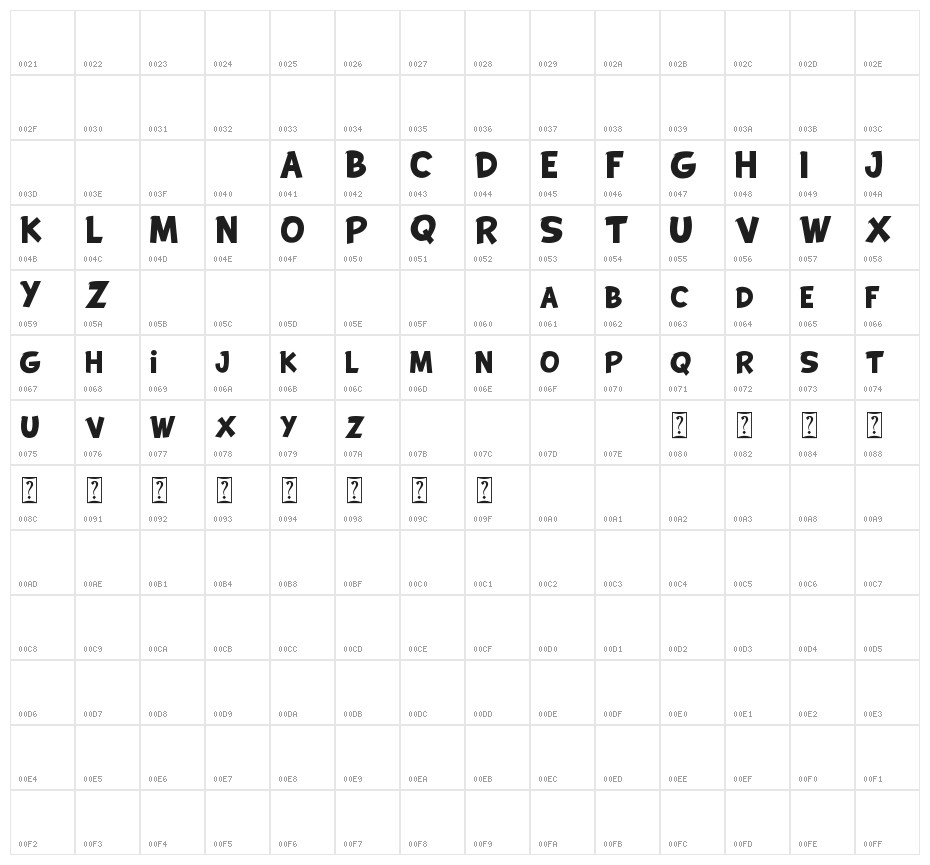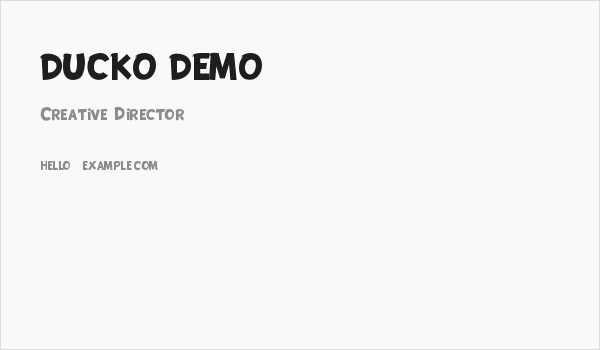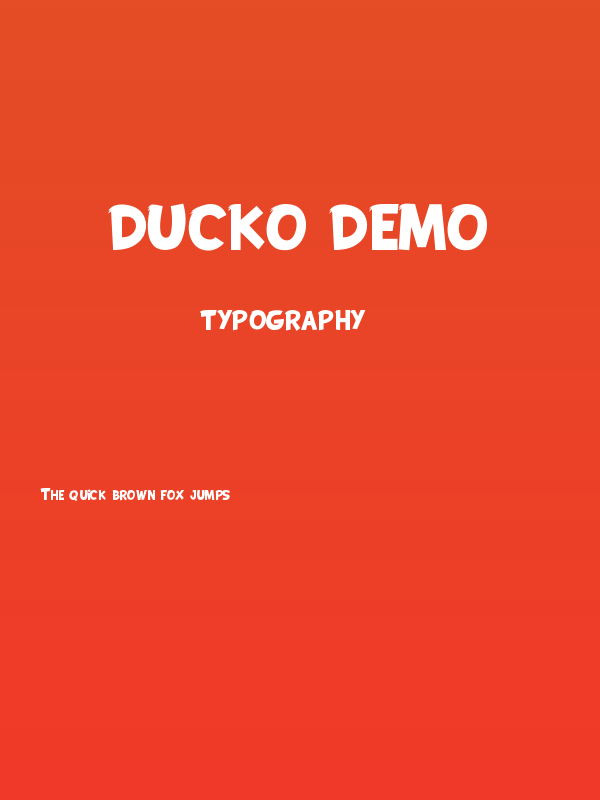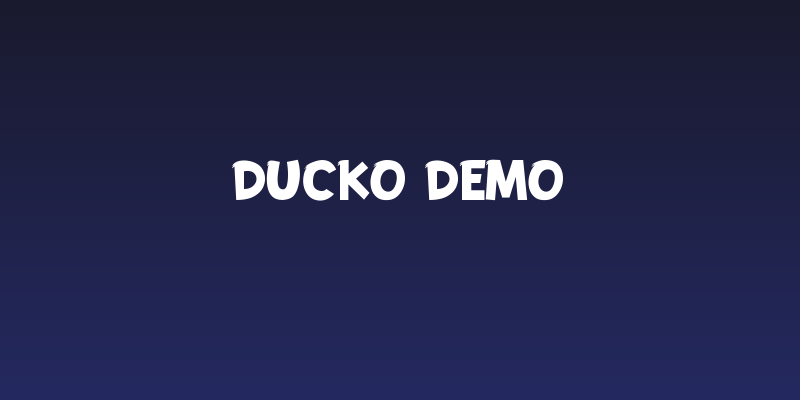
DUCKO DEMO Font
DUCKO DEMO Description
This font features a bold and playful design with thick, uneven strokes that give it a lively and dynamic appearance. The characters have a slightly irregular shape, adding a whimsical touch to the overall style. The uppercase letters are prominent and eye-catching, making them suitable for attention-grabbing headlines or titles. The font's unique style is reminiscent of hand-drawn or cartoonish lettering, which can add a fun and informal vibe to any project. Its boldness ensures readability, even from a distance, while the quirky design elements make it stand out in a crowd.
| Overall Style | Playful, Cartoonish, Whimsical |
| Proposed Projects | Ideal for children's books, comic strips, playful branding, or any project needing a fun and informal touch. |